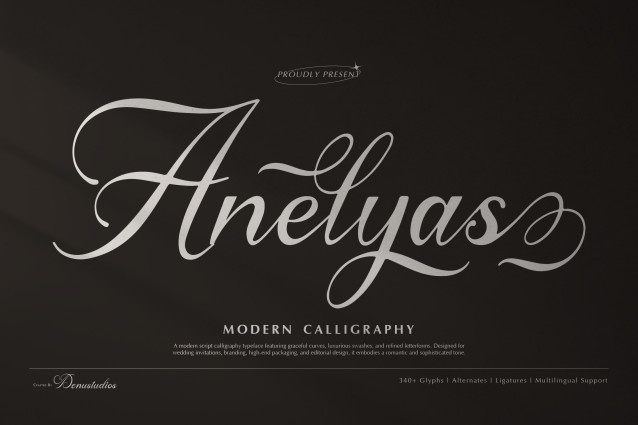
Anelyas Font
Anelyas Font | Modern Calligraphy, from Denustudios, suitable for any projects such as: logos, branding projects, homeware designs, product packaging, mugs, quotes, posters, shopping bags, t-shirts, book covers, name card, invitation cards, greeting cards, label, photography, watermark, special events, and all your other lovely projects that need a Modern Calligraphy taste.